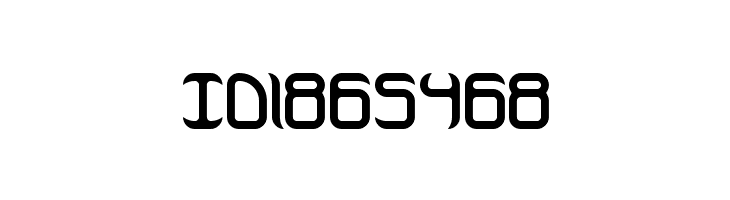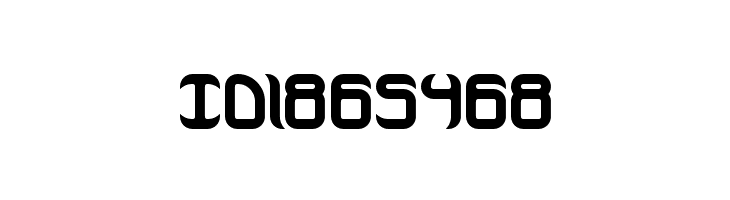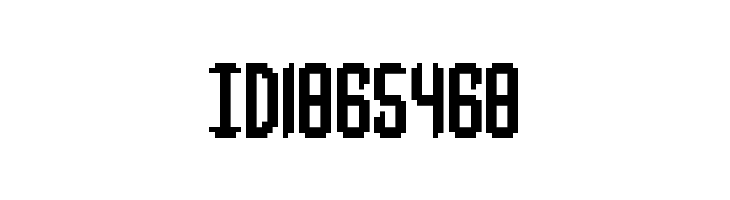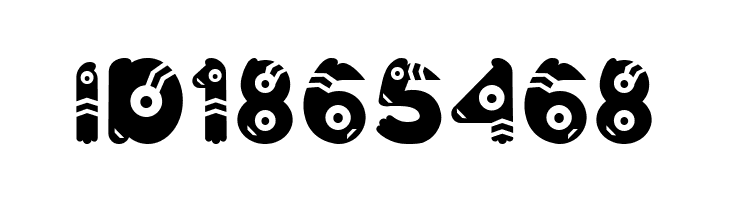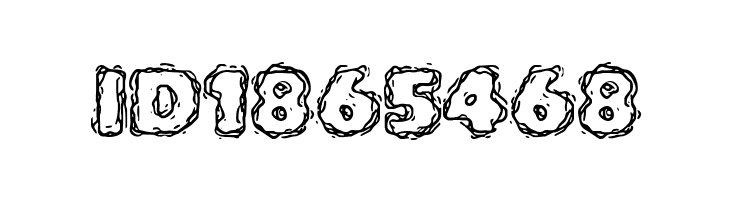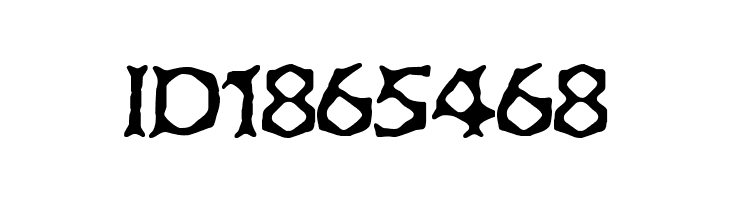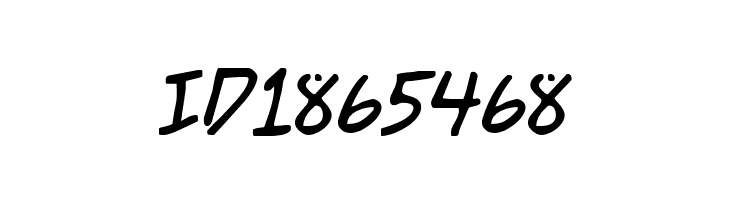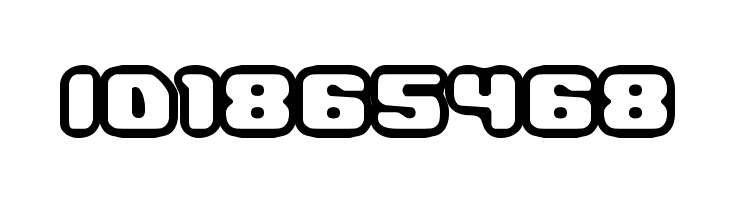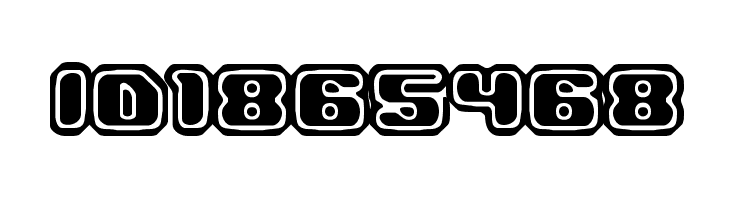
A bold, rounded font with a playful, bubble-like design.
A bold, playful font with a thick outline and bubble-like appearance.
A futuristic, bold font with rounded edges and a modern aesthetic.
A bold, geometric font with a futuristic and modern aesthetic.
A playful, handwritten font with a casual and dynamic style.
A bold, playful font with a hand-drawn, sketch-like texture.
A playful, bird-inspired decorative font with bold, rounded characters.